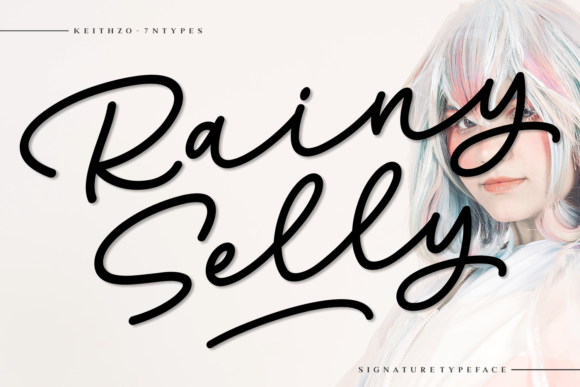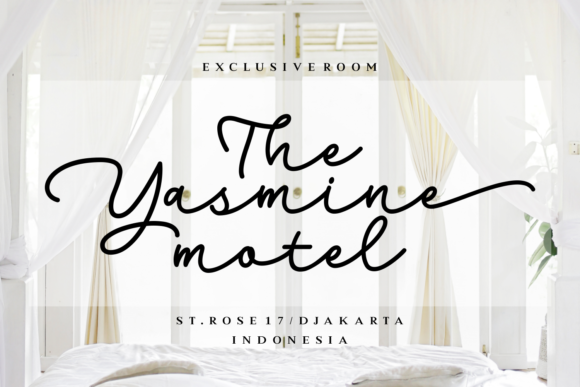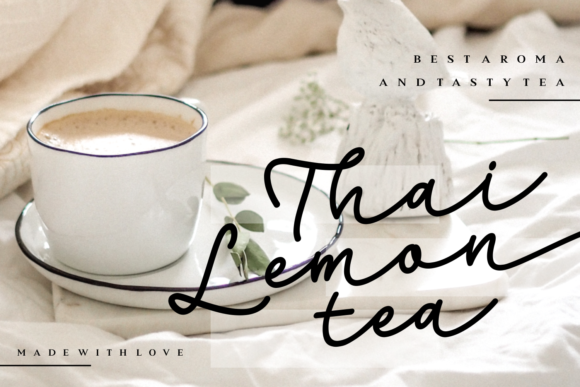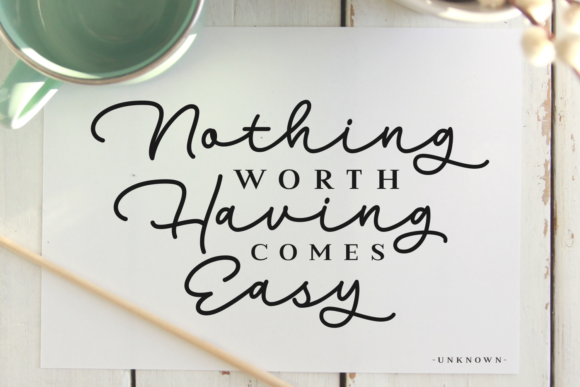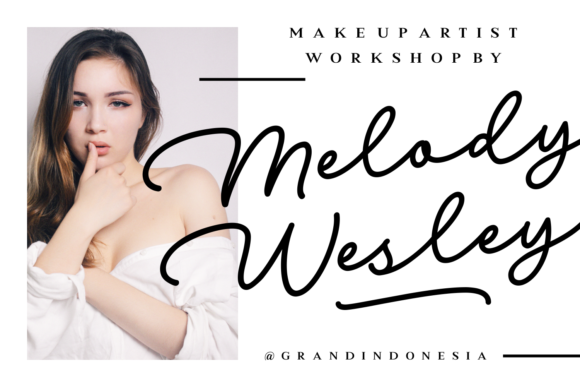
Rainy Selly Font
About Rainy Selly Font
The Rainy Selly is an unique handwritten font. It has a natural writing style which looks like quick handwriting. It has a great readability and is perfect for adding a personal touch to any design.